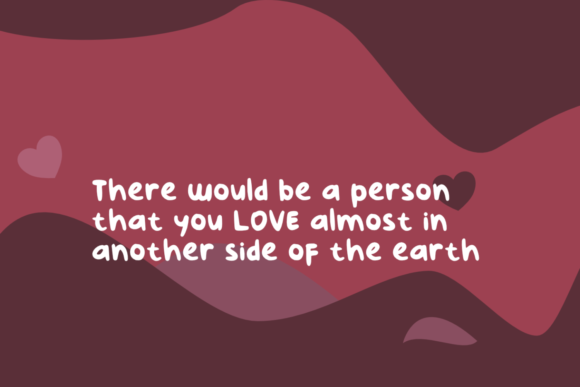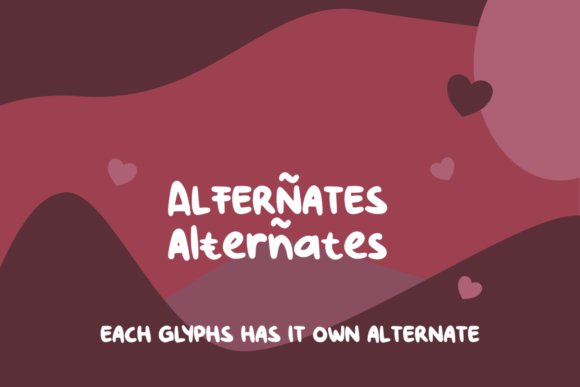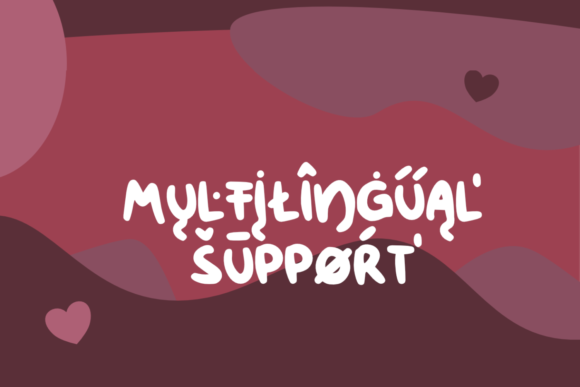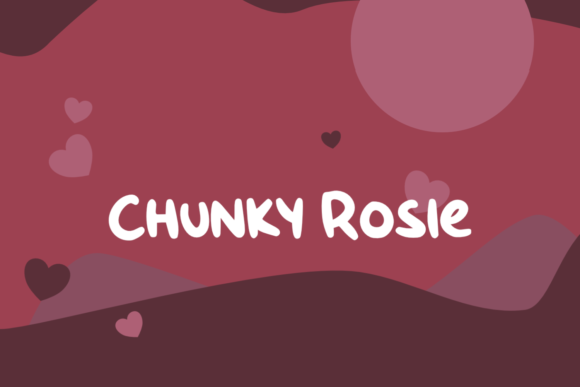
Introduction to Chunky Rosie Font
Chunky Rosie is a sweet and chunky lettered handwritten font.
Fall in love with its incredibly versatile style and use it to create spectacular designs .
Key Features of Chunky Rosie Font
Why Choose Chunky Rosie Font?
Chunky Rosie Font offers exceptional quality and versatility, making it a valuable addition to your design toolkit. Whether you’re creating for personal projects or commercial use, Chunky Rosie Font delivers professional results.